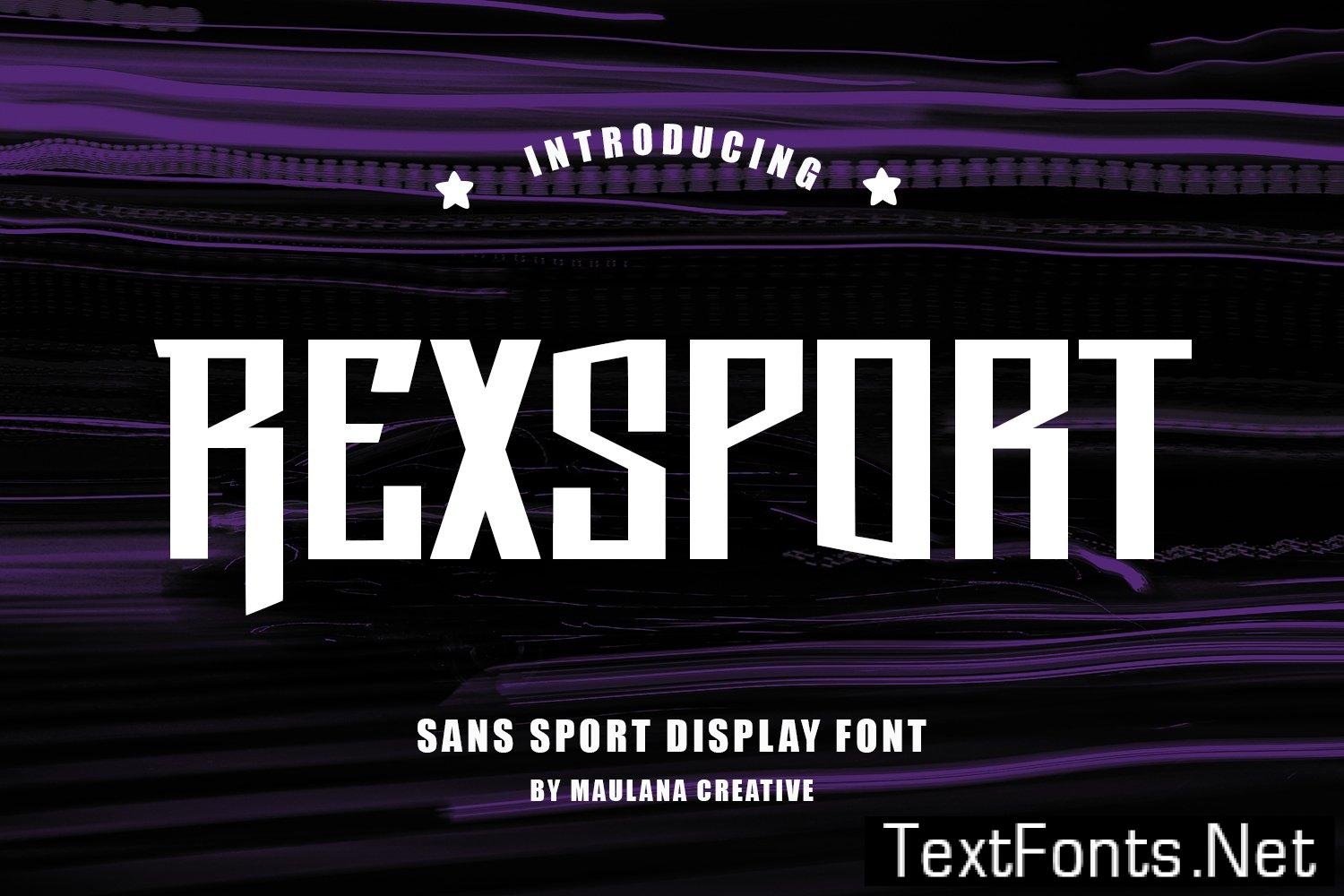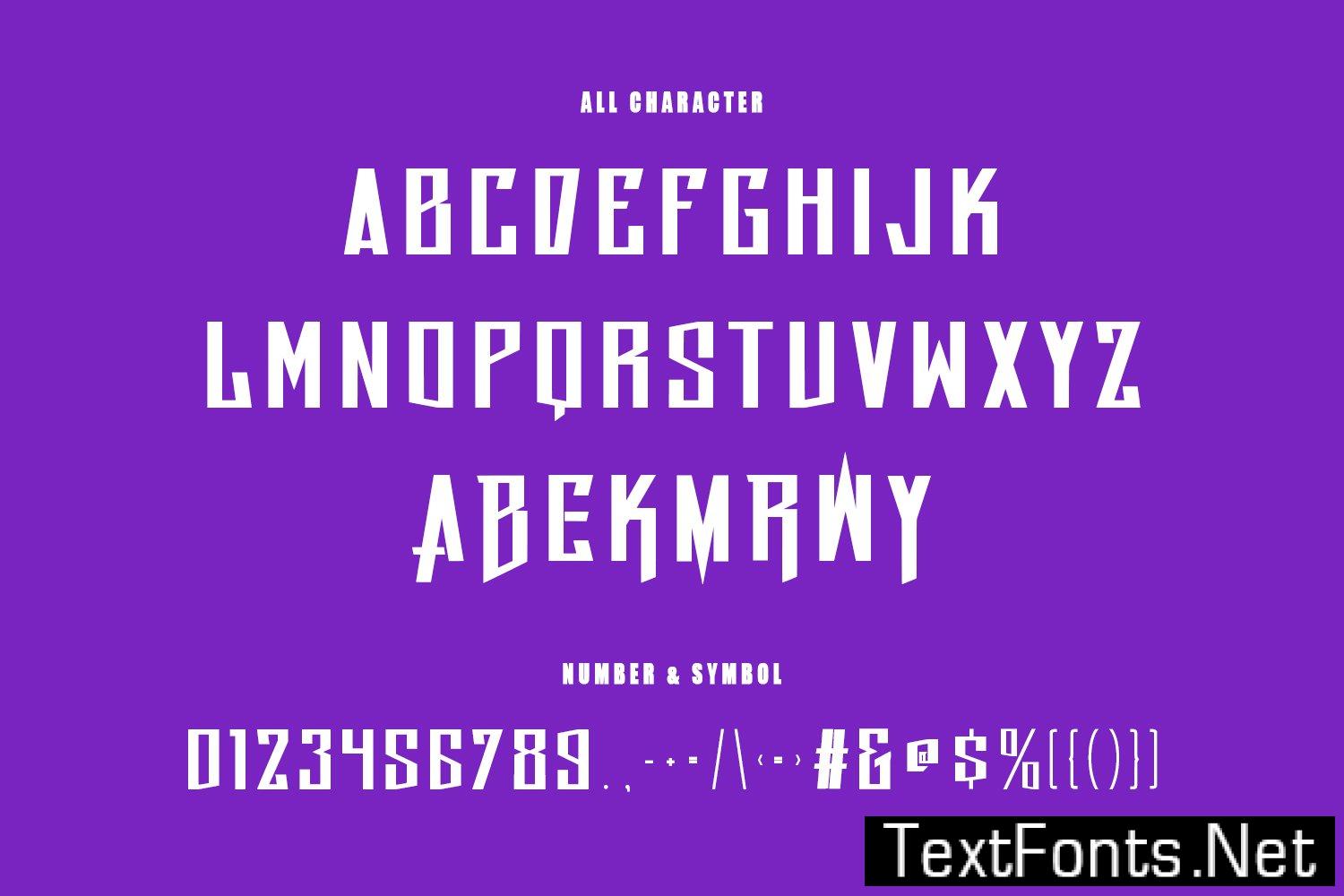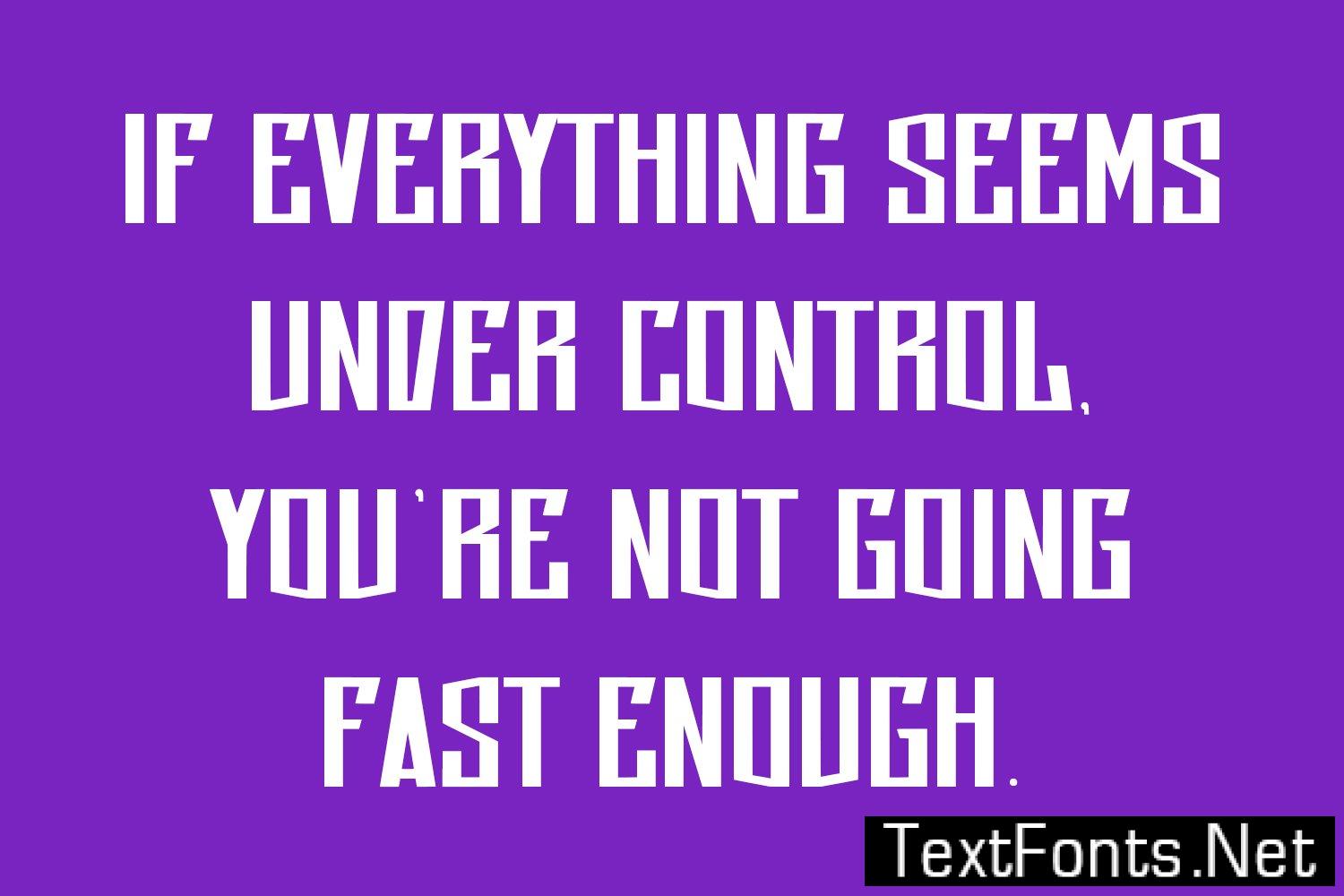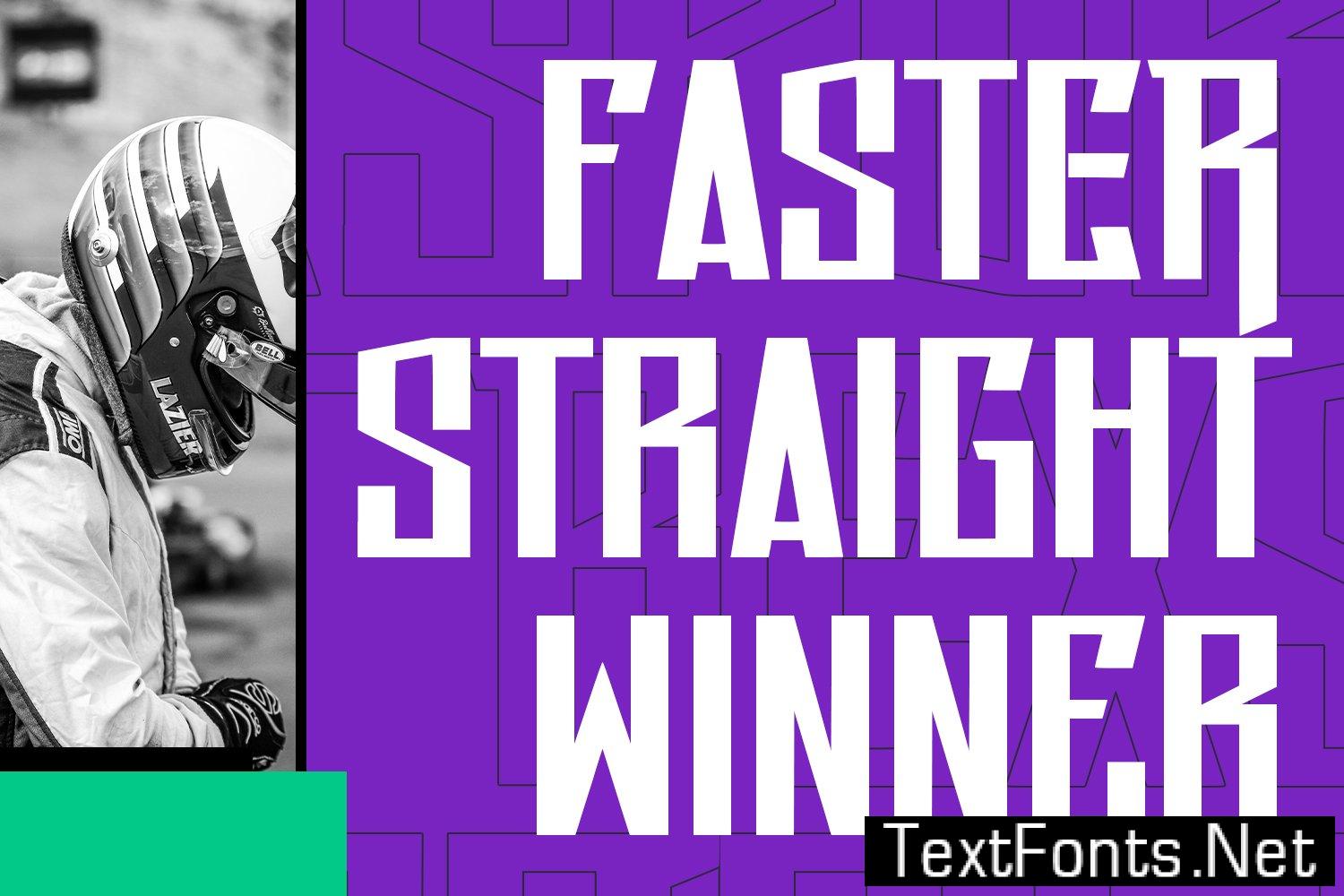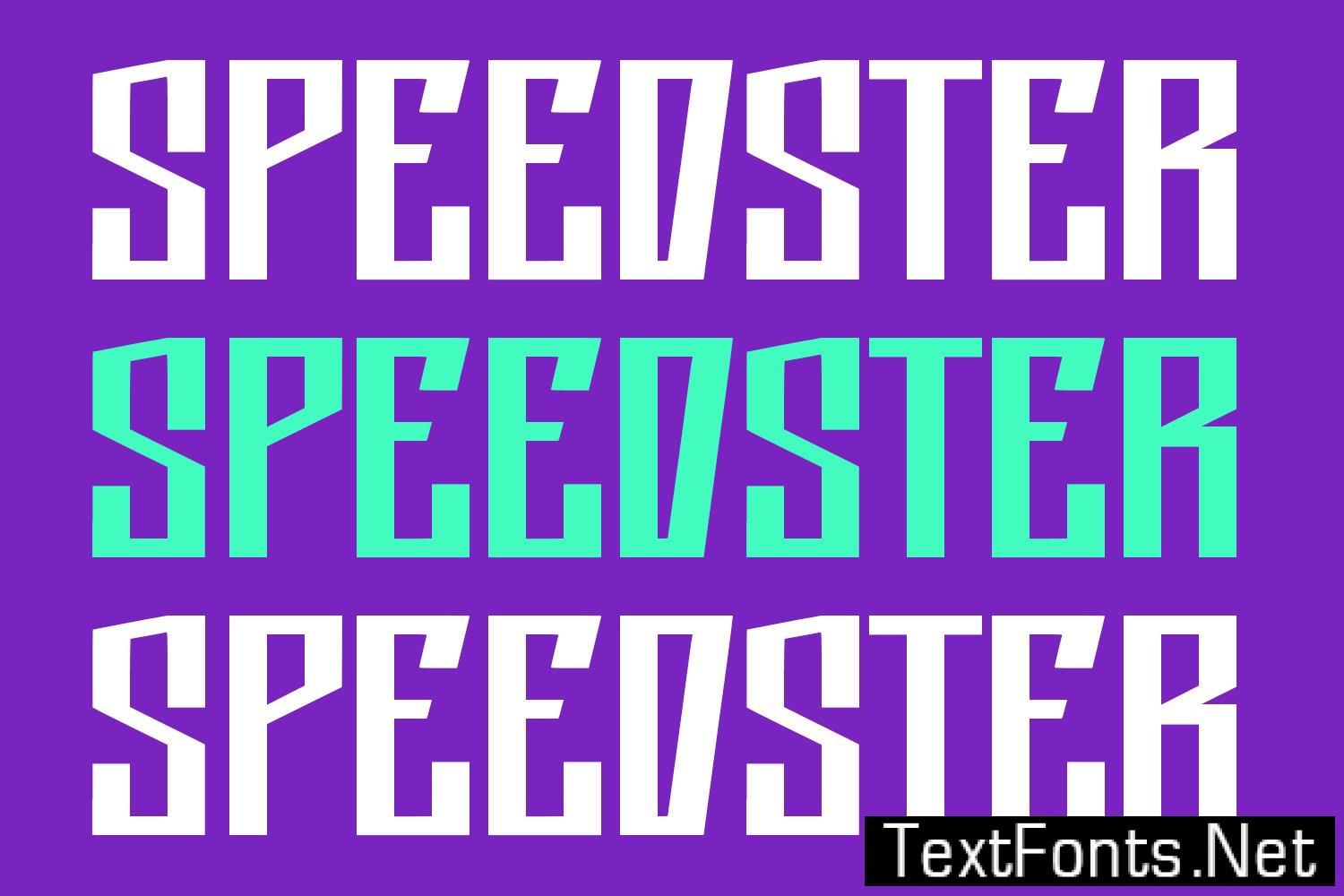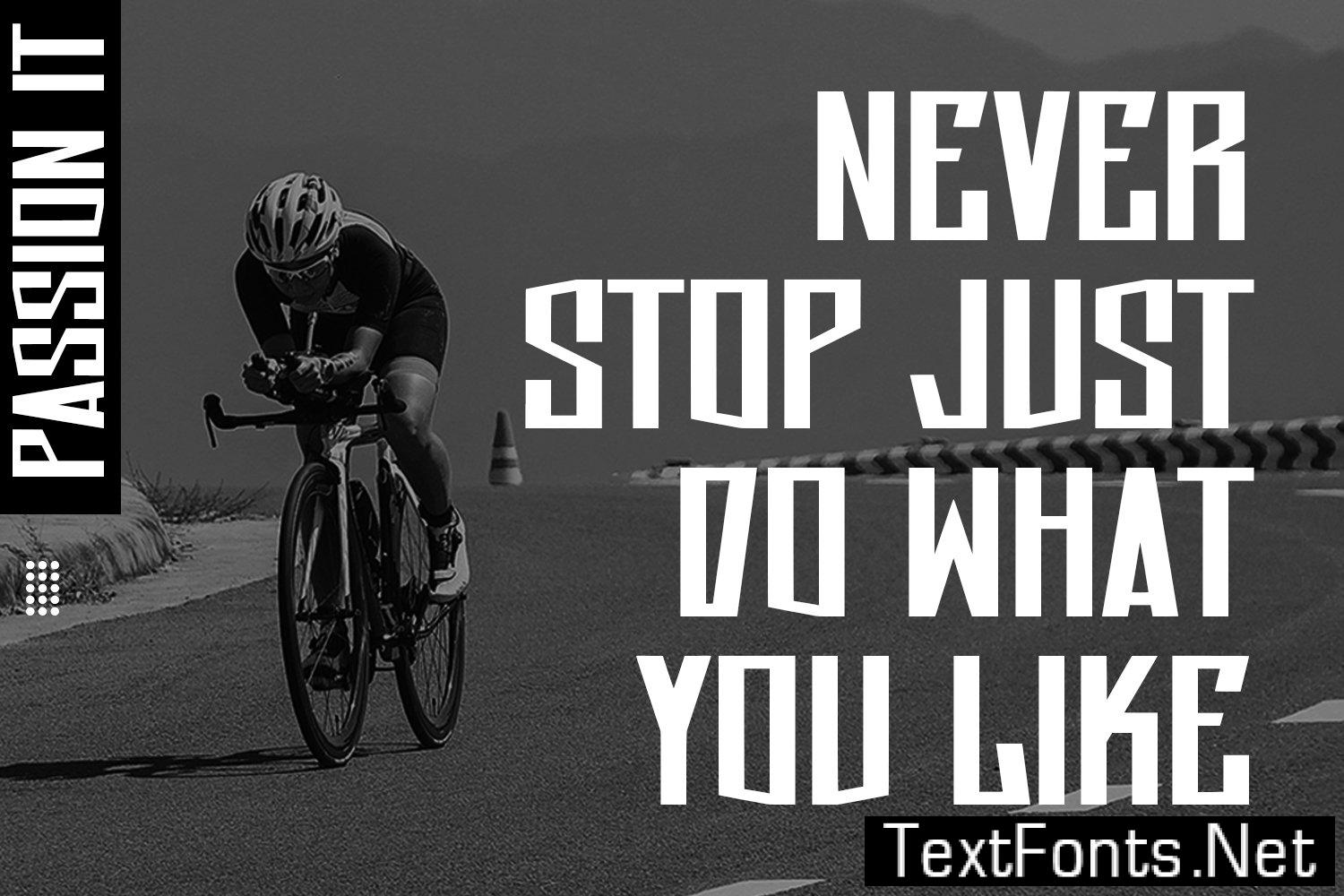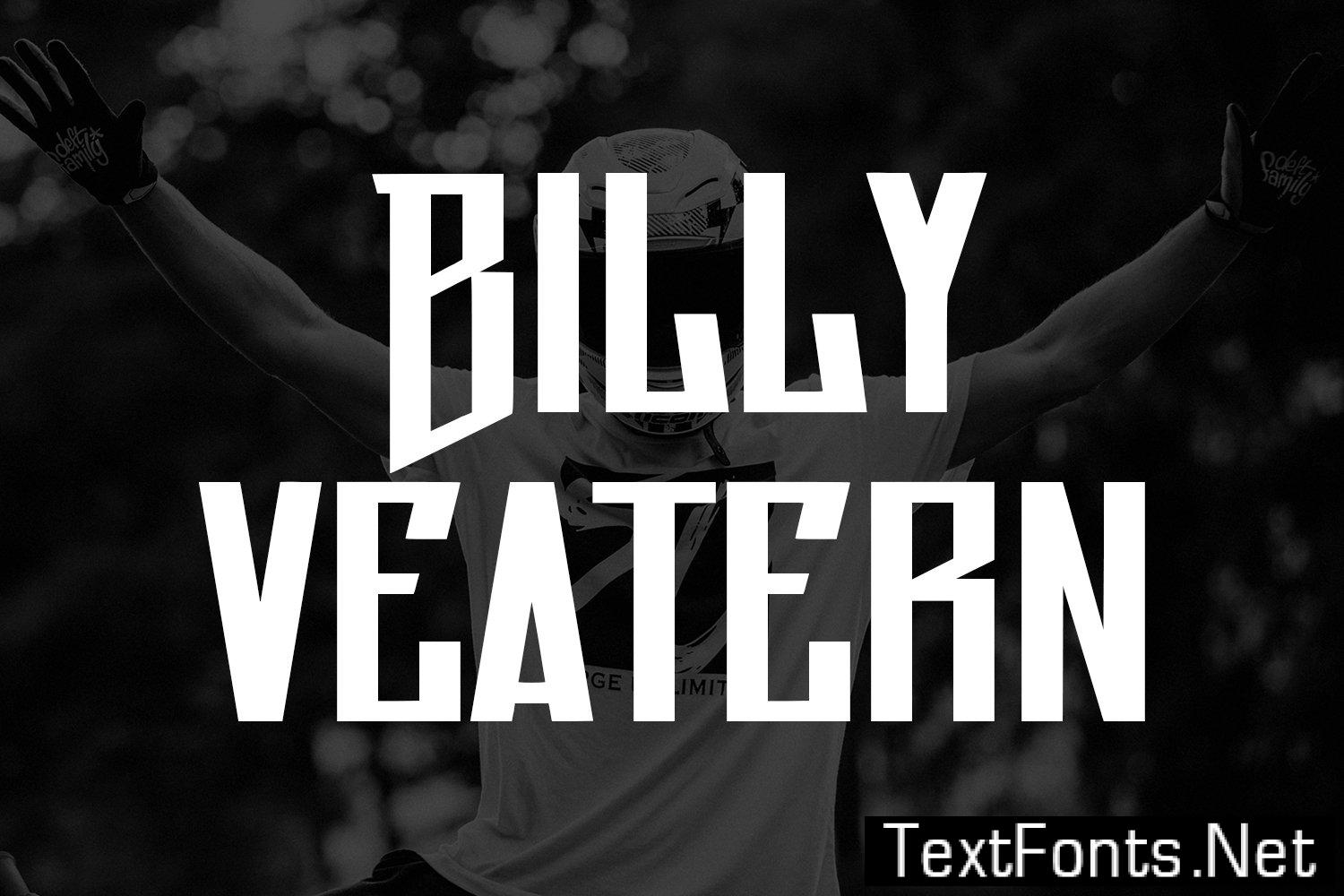
Rexsport sport display font. Heavy stroke, fun character with alternates. To give you an extra creative work. Rexsport sport display font support multilingual language. This font is good for logo design, Social media, Movie Titles, Books Titles, a short text even a long text letter and good for your secondary text font with script or serif. Make a stunning work with Rexsport sport display font.